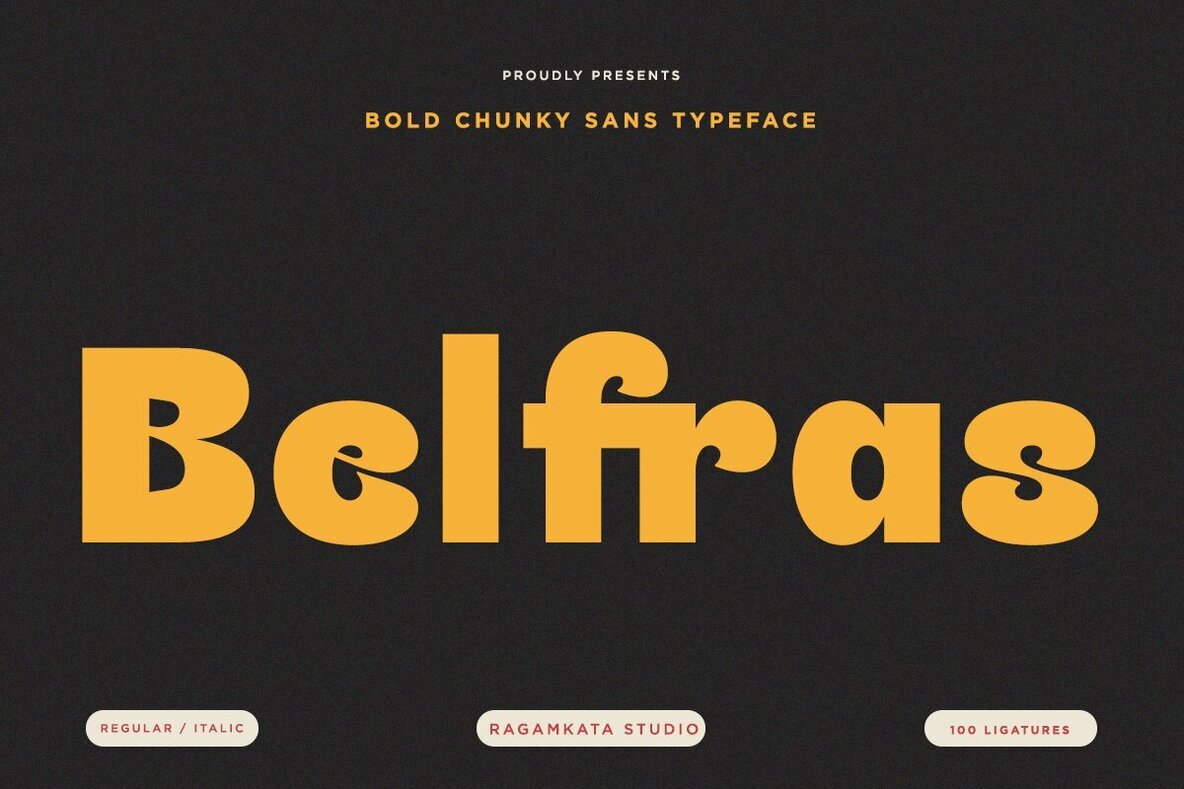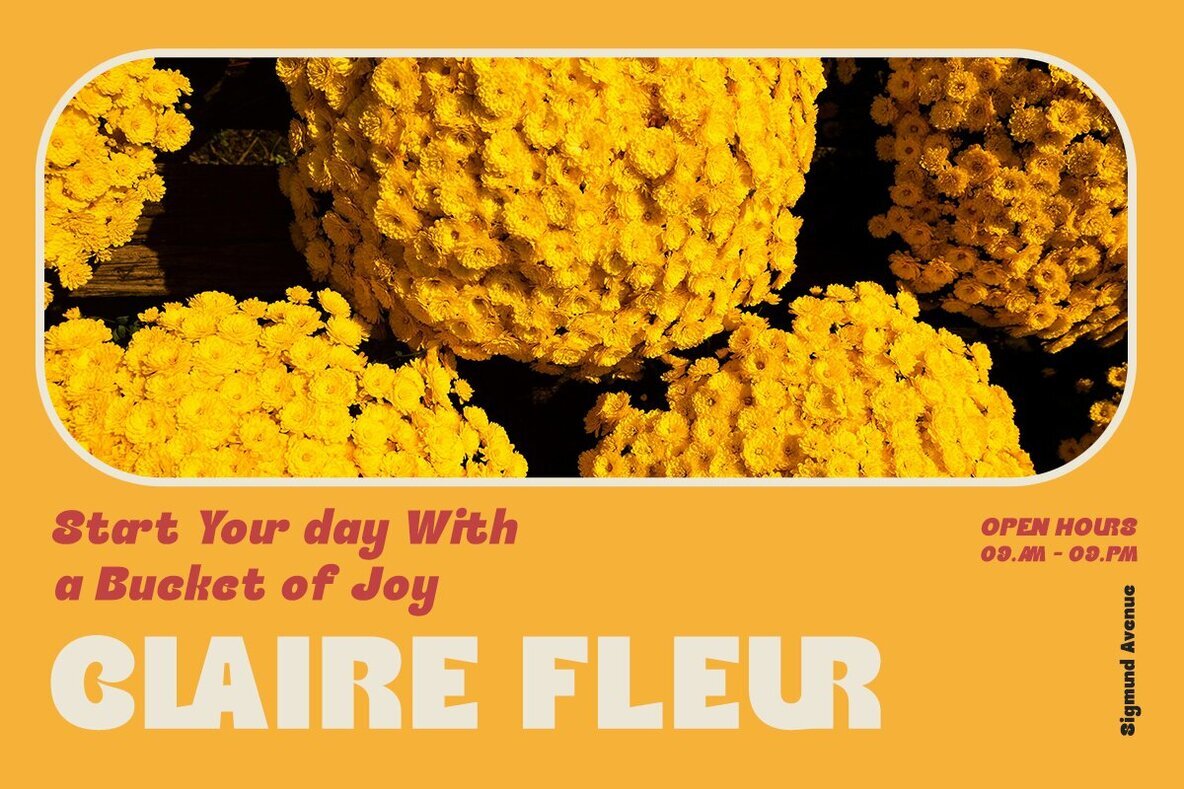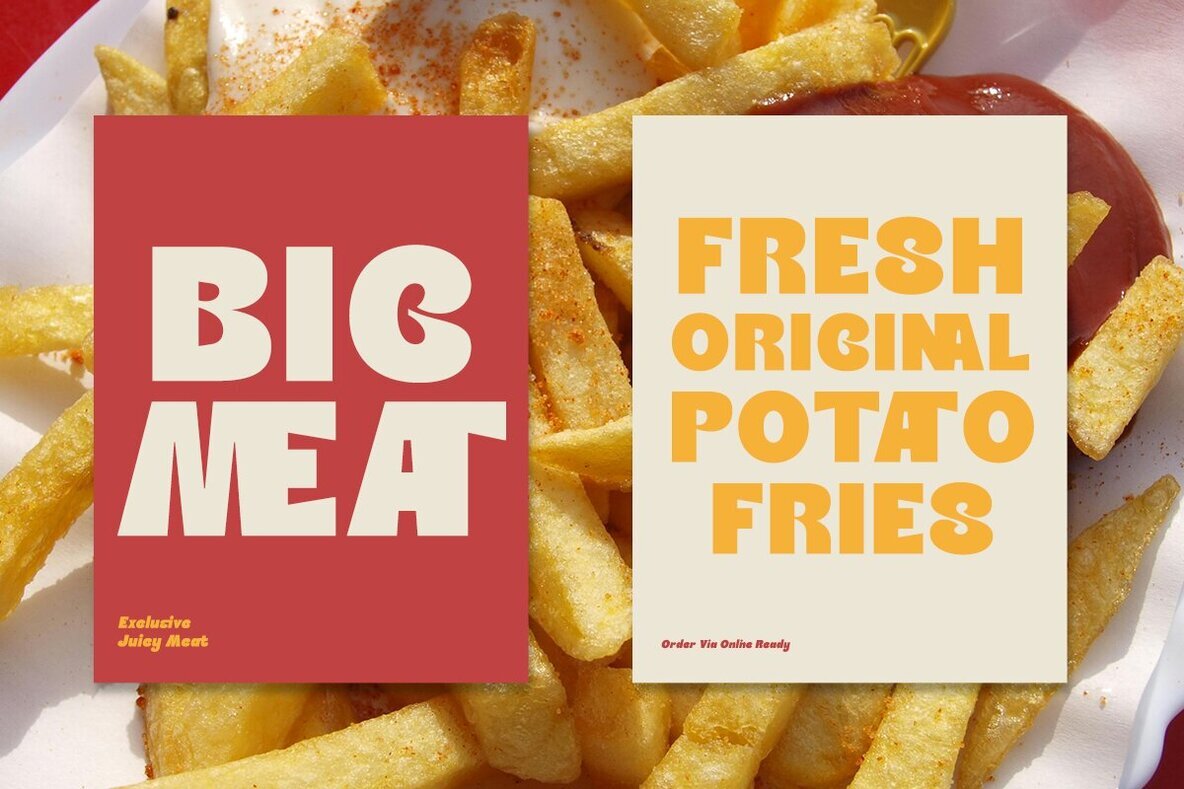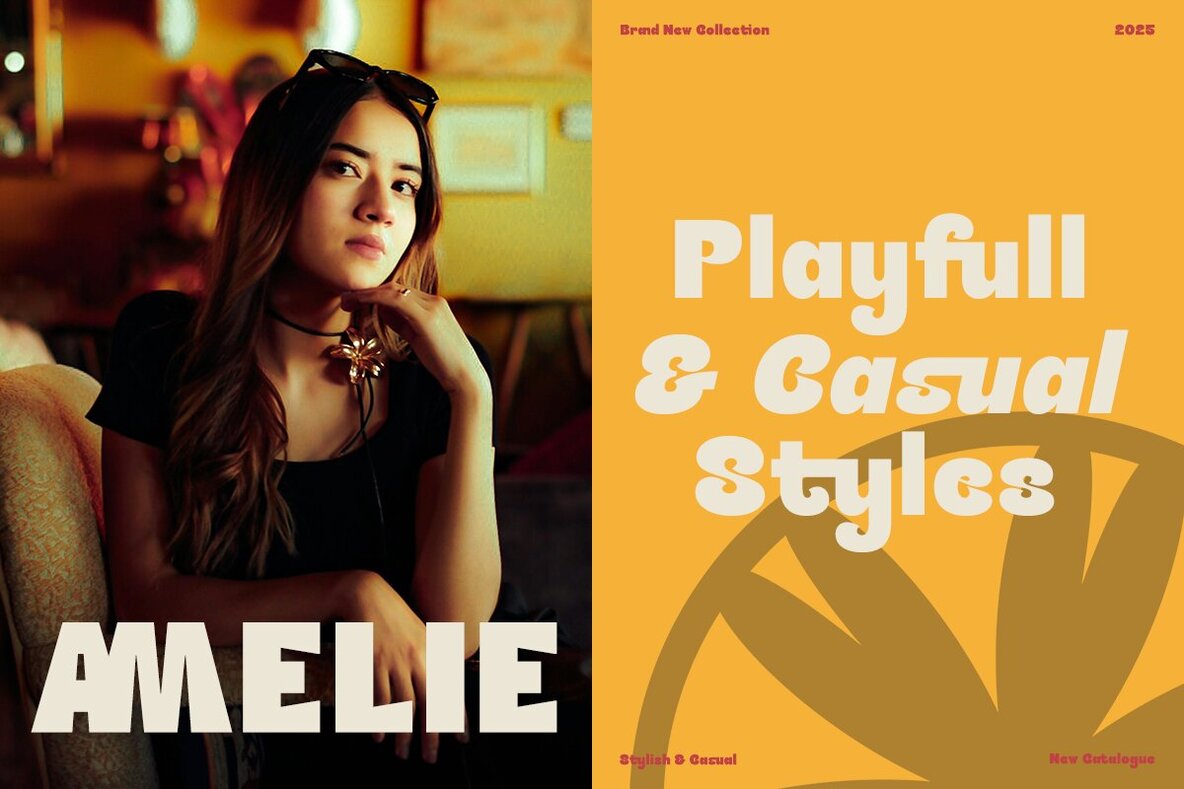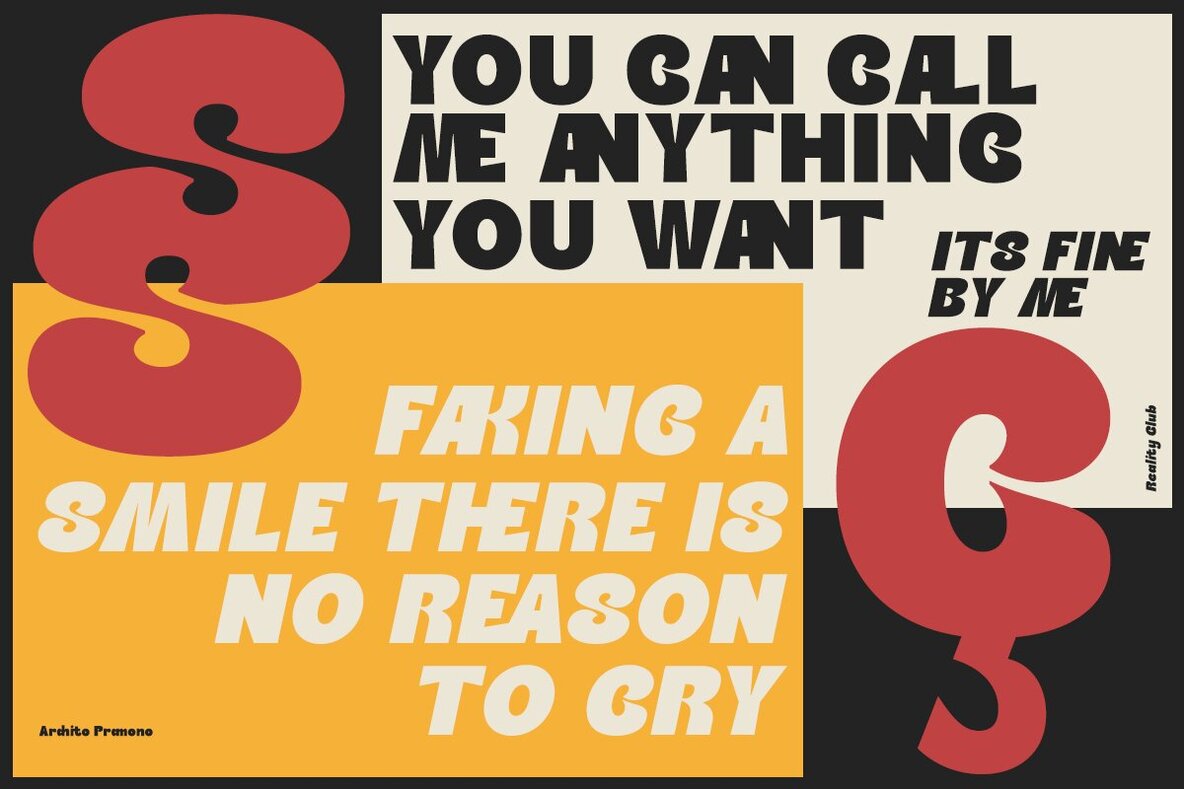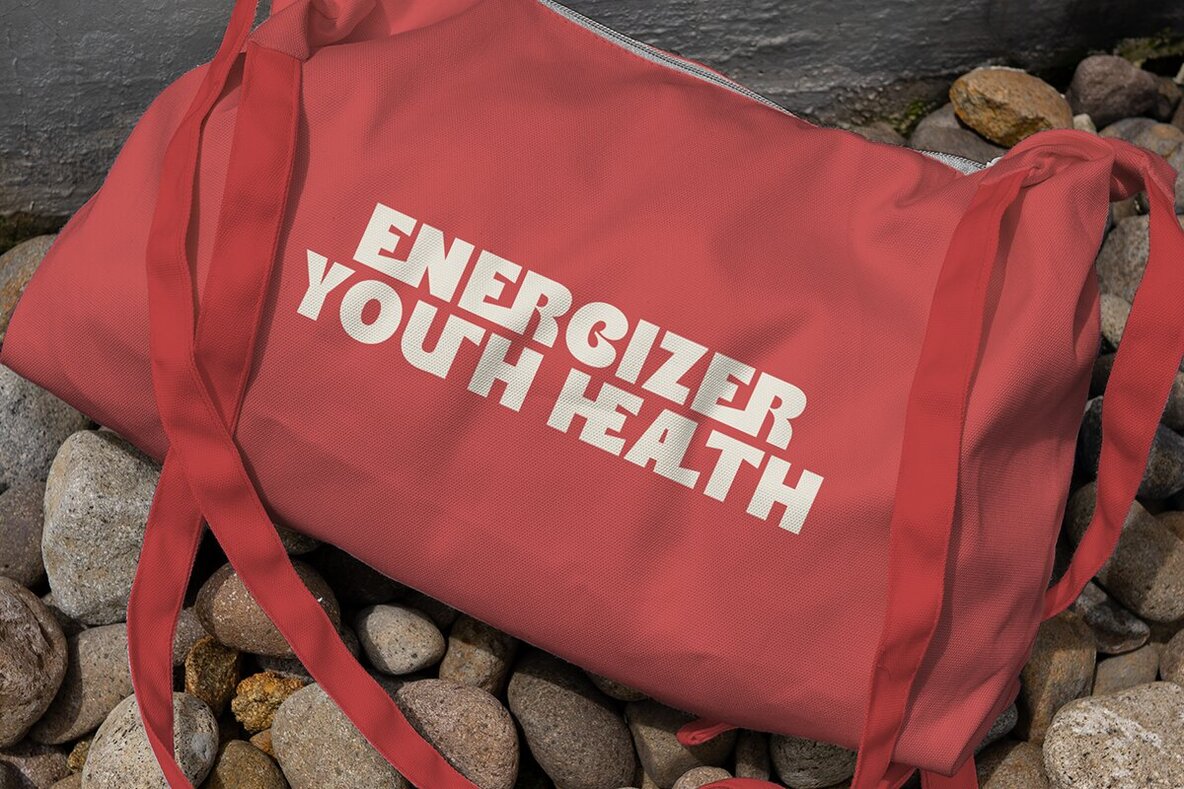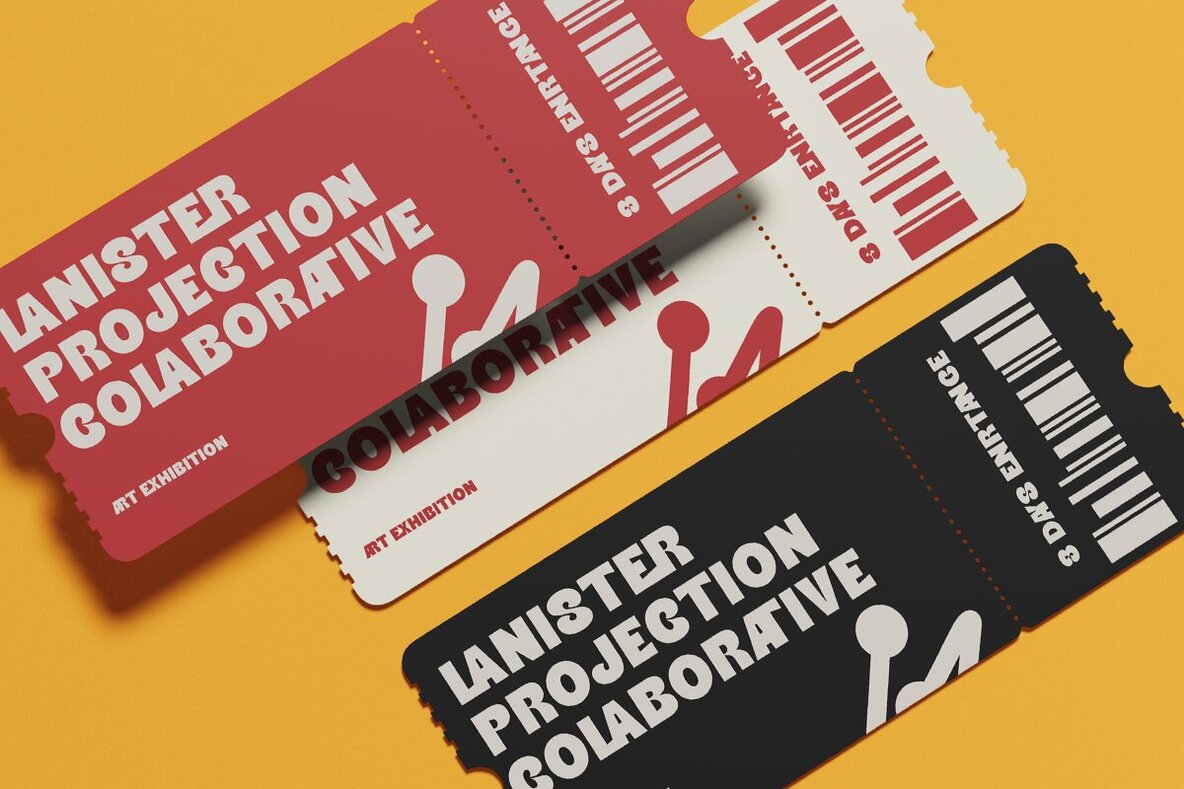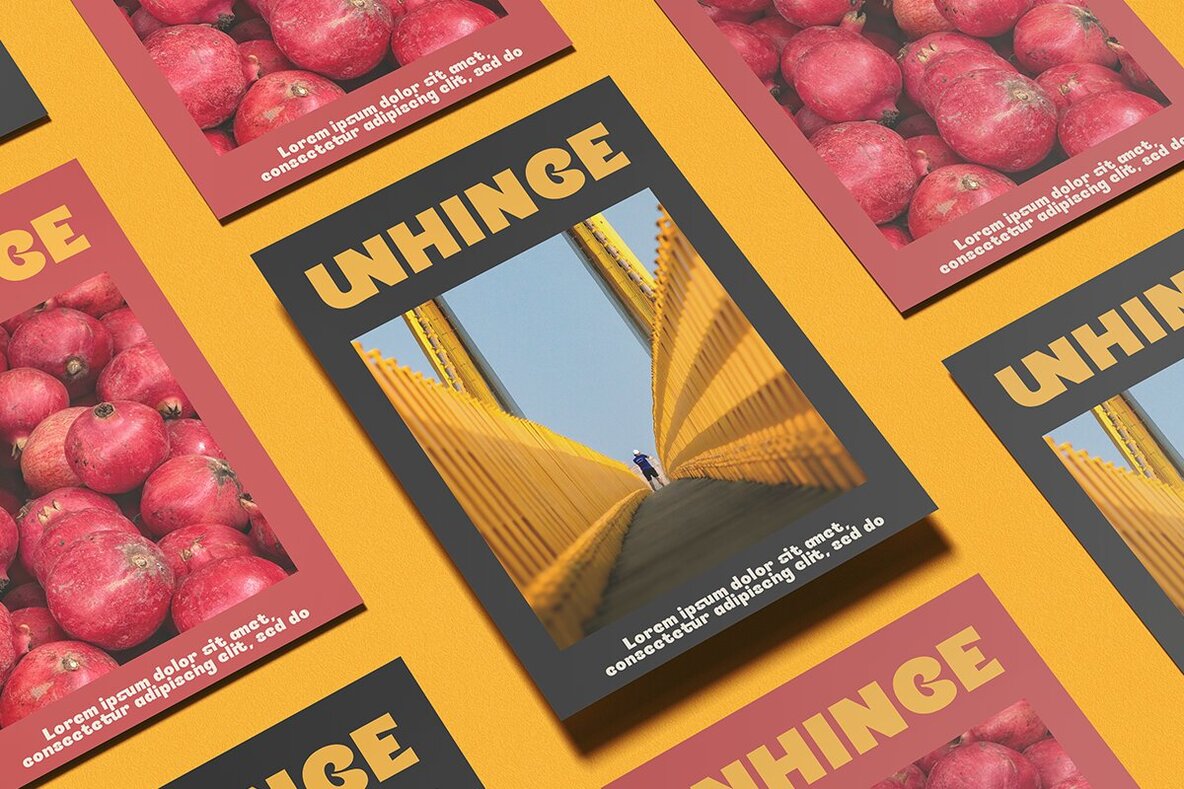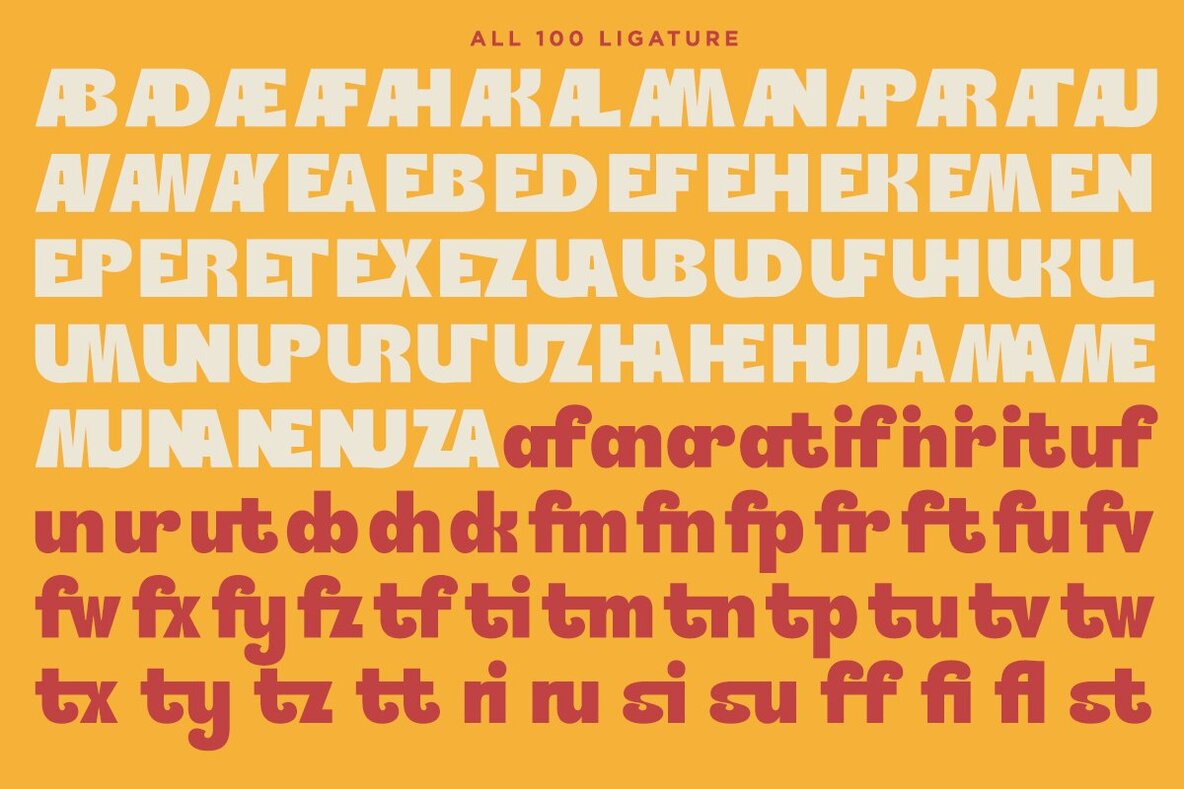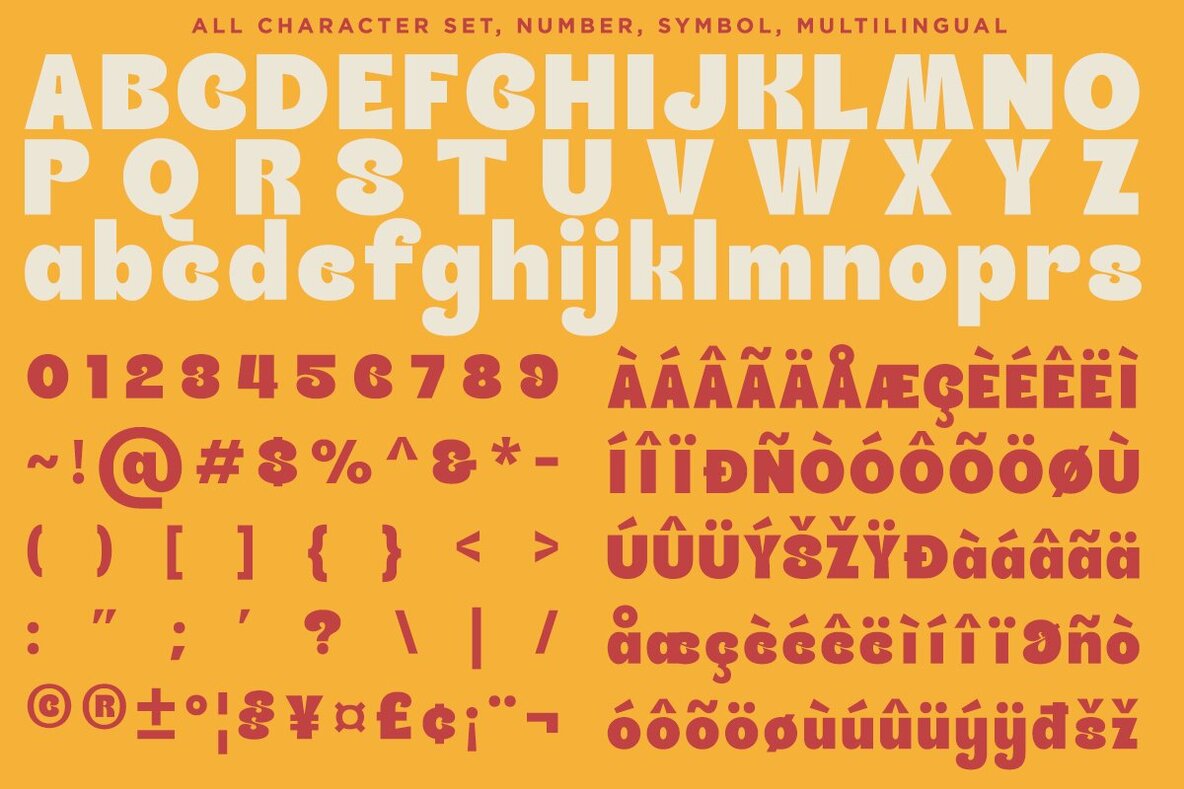
Belfras Font
Belfras is a bold display font designed to create a strong visual impact. Its unique letterforms make it ideal for logos, posters, headlines, and social media graphics. Every detail has been crafted to help your designs stand out in both digital and print environments. Perfect for branding projects, Belfras adapts effortlessly across diverse design settings. Its distinctive character and careful ligature design bring personality and clarity to every message.Belfras Display Font